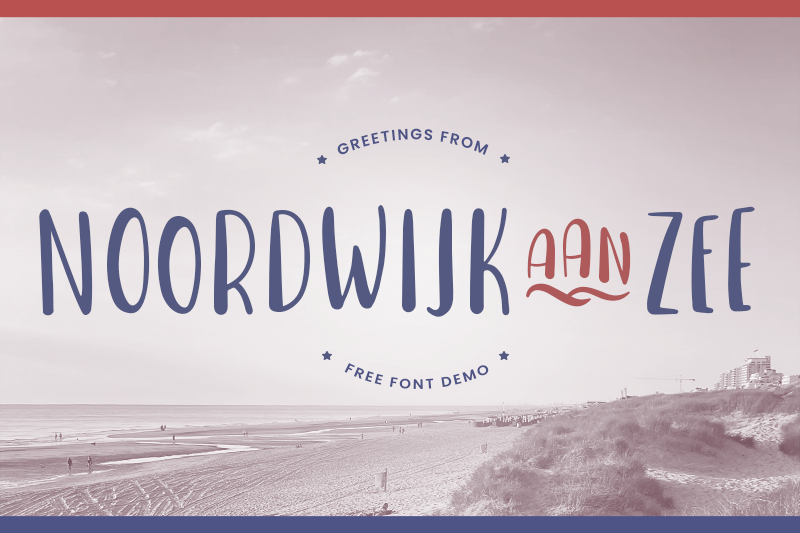
Font name: | Noordwijk aan Zee |
//ABOUT THE PROJECT This project is meant to be a tribute to one of my most favourite places on earth. It�s a place where I can truly calm myself down and feel at home. It�s a place that accompanied me my whole life and has given me so much joy. Introducing �Noordwijk aan Zee�, a beautiful dutch city at the north sea and now also my latest font project. //ABOUT THE FONT The handwritten font features a messy, but still clean look that can be used for any kind of packaging, menu card or book cover. Of course there are many other purposes this font can be used for. We�ve created sixteen individual letter pairs, so that the font always has a very natural and authentic handwritten look to it. //LICENSE The free demo comes with a free for personal use license, but please purchase a commercial license on our website @ www.shapedfonts.com/noordwijk if you aim to make profit with your business. The font is free for non-profit organisations. If your company or the client you�re creating this for has more than 9 employees please send us a mail @ license@shapedfonts.com //CUSTOM GLYPHS Missing a glyph? The full version included with any commercial license purchase includes language support, special characters and an italic version. And if a glyph is still missing, just ask us and we will create it for you. If you�re company is interested in your custom �aan� word-icon solution let us know and we�re happy to help you with this, too. Contact us @ license@shapedfonts.com More... |